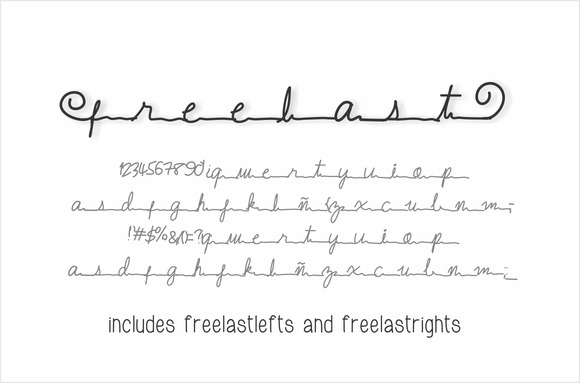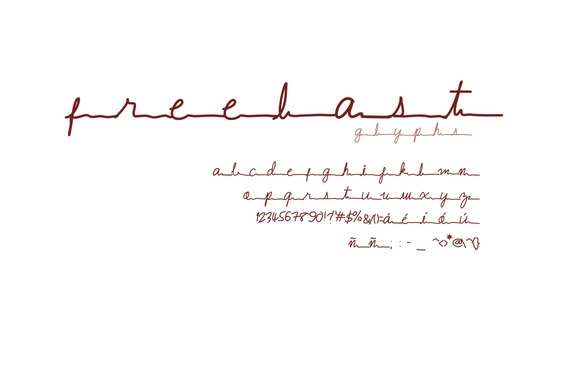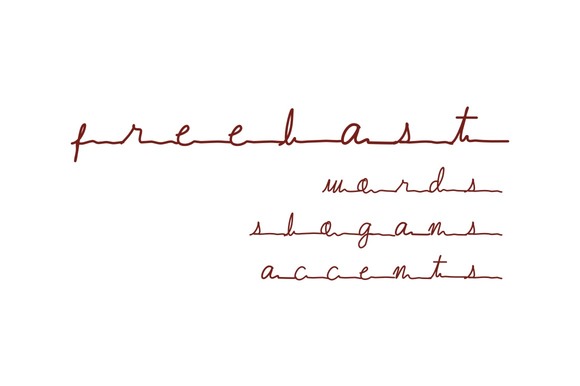
Freelast Font
About Freelast Font
Freelast is an elegant typeface. It contains only lowercase letters. It can be used for various purposes such as headings, logos, invitations, t-shirt designs, greeting cards, posters, labels, book covers, brochures, and much more!